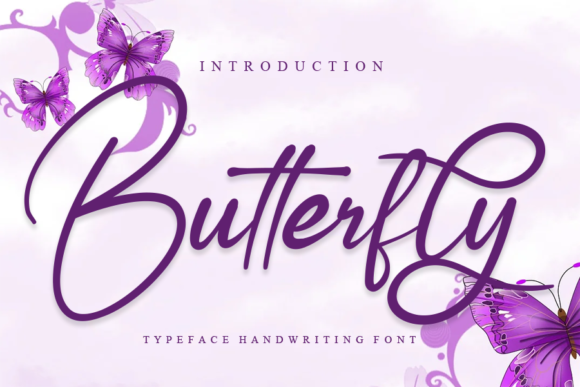
The Whimsy of Butterfly Font
Who among us hasn’t scribbled out a playful doodle on a napkin or scribbled a heartfelt message in a child’s birthday card? It’s in these moments that we tap into our creative potential, and for designers, the right tools can make all the difference. That’s where the Butterfly Font comes in – a handmade script typeface that’s as charming as it is versatile.
Perfect for adding a touch of whimsy to children’s designs, quotes, and headings, the Butterfly Font is a designer’s dream come true. Its playful feel makes it an ideal choice for logos, t-shirts, invitations, posters, and more. Whether you’re crafting a whimsical world for kids or creating a statement piece for a brand, the Butterfly Font is an invaluable asset in your design arsenal.
Key Features of Butterfly Font
- Font Style: Handwritten, Script
- Unique Characteristics: Whimsical, elegant, and playful design; ideal for creative projects, invitations, and social media graphics
Butterfly Font Review
Overall, the Butterfly Font is a beautiful, whimsical script that adds a touch of elegance to any design project. ✨ The flowing lines and organic feel of the font make it perfect for creative, handwritten-style text, such as logos, titles, and headings. ✨
The font’s versatility is one of its strongest points, and it can be used in a variety of contexts, from children’s books to wedding invitations. ✨ It’s also highly legible, even at smaller font sizes, which makes it a great choice for body text as well.
- ⚠️ The font may be too ornate for some designs, particularly those that require a more straightforward or modern aesthetic.
- ⚠️ The font’s flowy lines can make it difficult to read at very large font sizes, as the letters may become too condensed.
Overall, I’m really impressed with the Butterfly Font, and I think it’s a great addition to any designer’s toolkit. While it may not be suitable for every project, it’s definitely worth having in your arsenal for those times when you need a touch of whimsy and elegance.
The Butterfly Font is ideal for:
- Party and event designs
- Children’s book illustrations and text
Alternatives to Butterfly Font
Great Vibes Font is a beautiful, elegant script font suitable for wedding invitations, quotes, and other creative projects. It is highly customizable and has a wide range of styles to choose from. In comparison to Butterfly Font, Great Vibes Font has a more refined and sophisticated feel, making it perfect for formal and high-end designs.
Alex Brush Font is a handwritten font with a unique, artistic feel. It is ideal for creative projects, such as book covers, magazine titles, and advertisements. Compared to Butterfly Font, Alex Brush Font has a more organic and free-spirited feel, making it perfect for projects that require a touch of whimsy and personality.
Lato Font is a modern sans-serif font suitable for a wide range of projects, from corporate identities to digital products. It is highly customizable and has a clean, minimalist aesthetic. In comparison to Butterfly Font, Lato Font is more straightforward and lacks the ornate details, making it perfect for projects that require a clean and simple design.
Crimson Text Font is a serif font with a vintage feel, suitable for projects that require a classic and elegant look. It is highly customizable and has a wide range of styles to choose from. Compared to Butterfly Font, Crimson Text Font has a more traditional and sophisticated feel, making it perfect for projects that require a touch of nostalgia and sophistication.